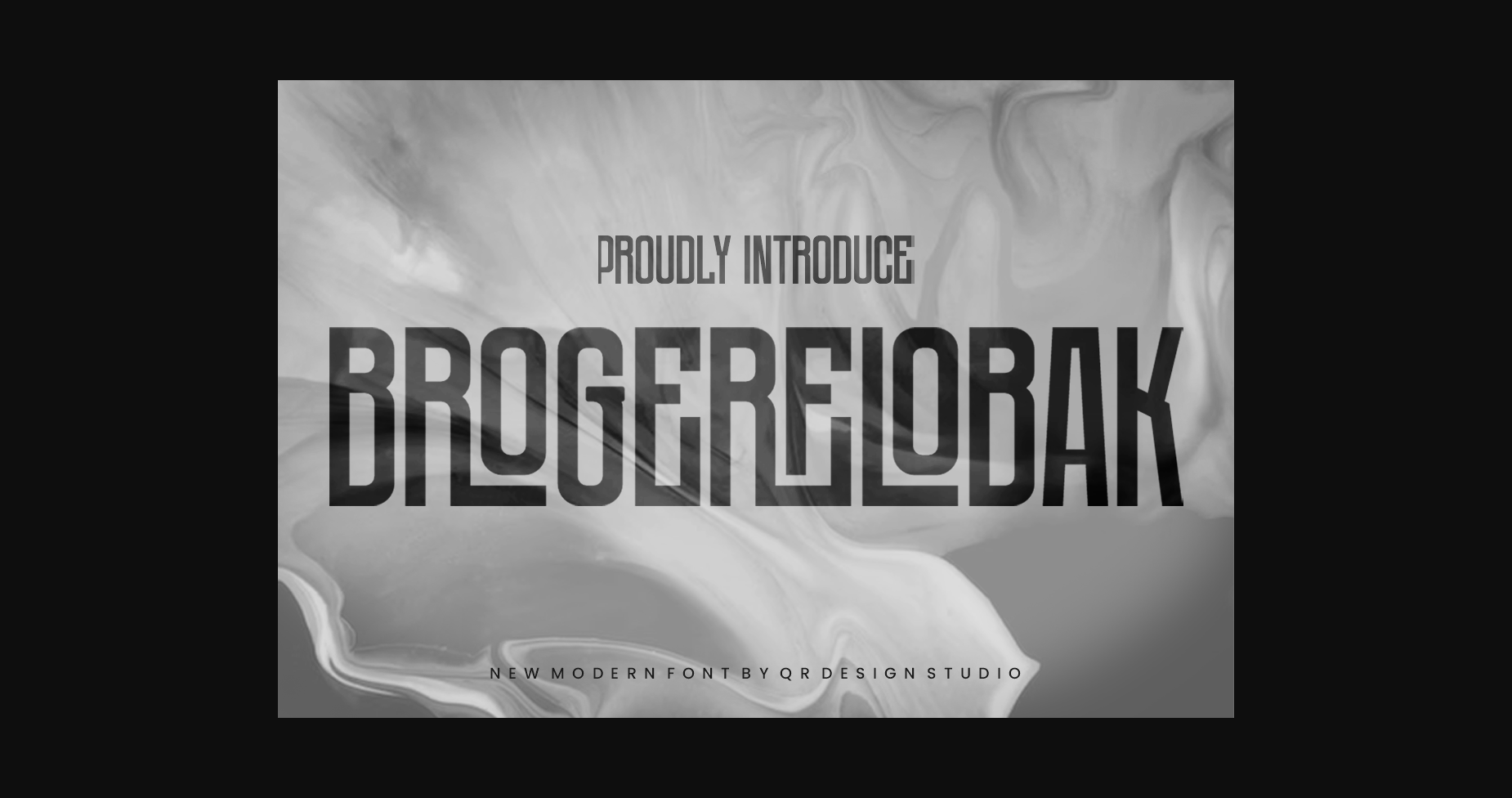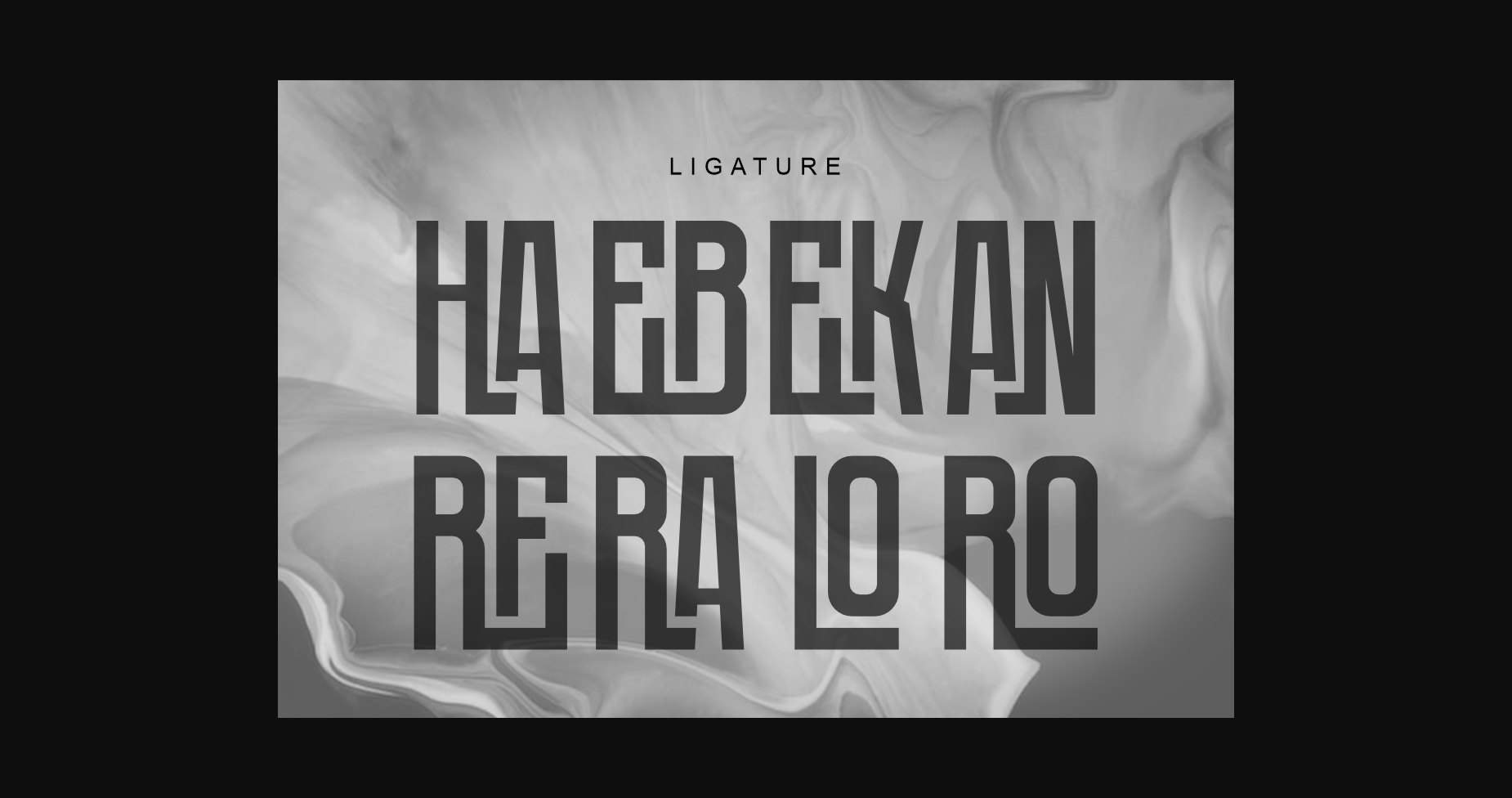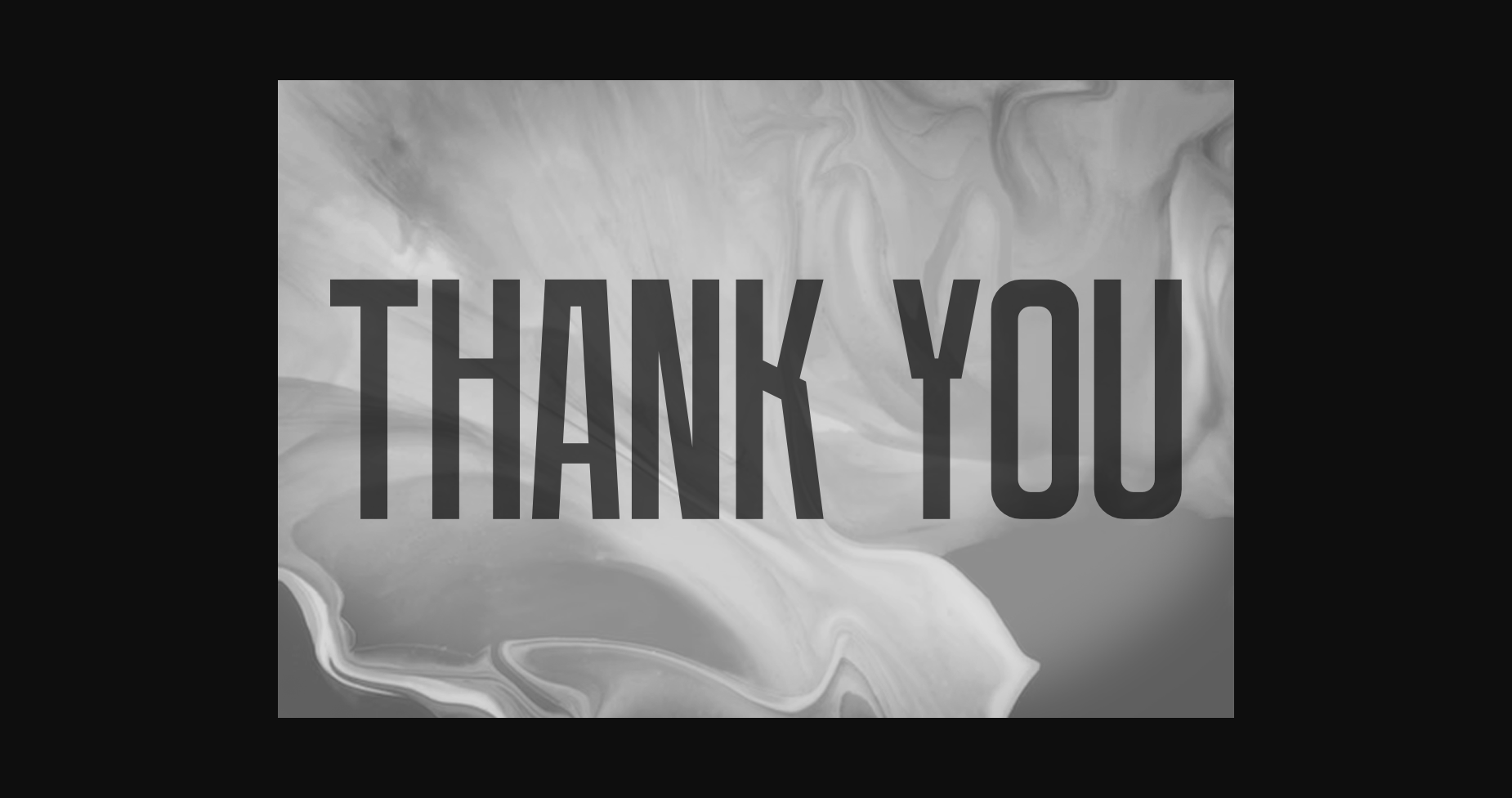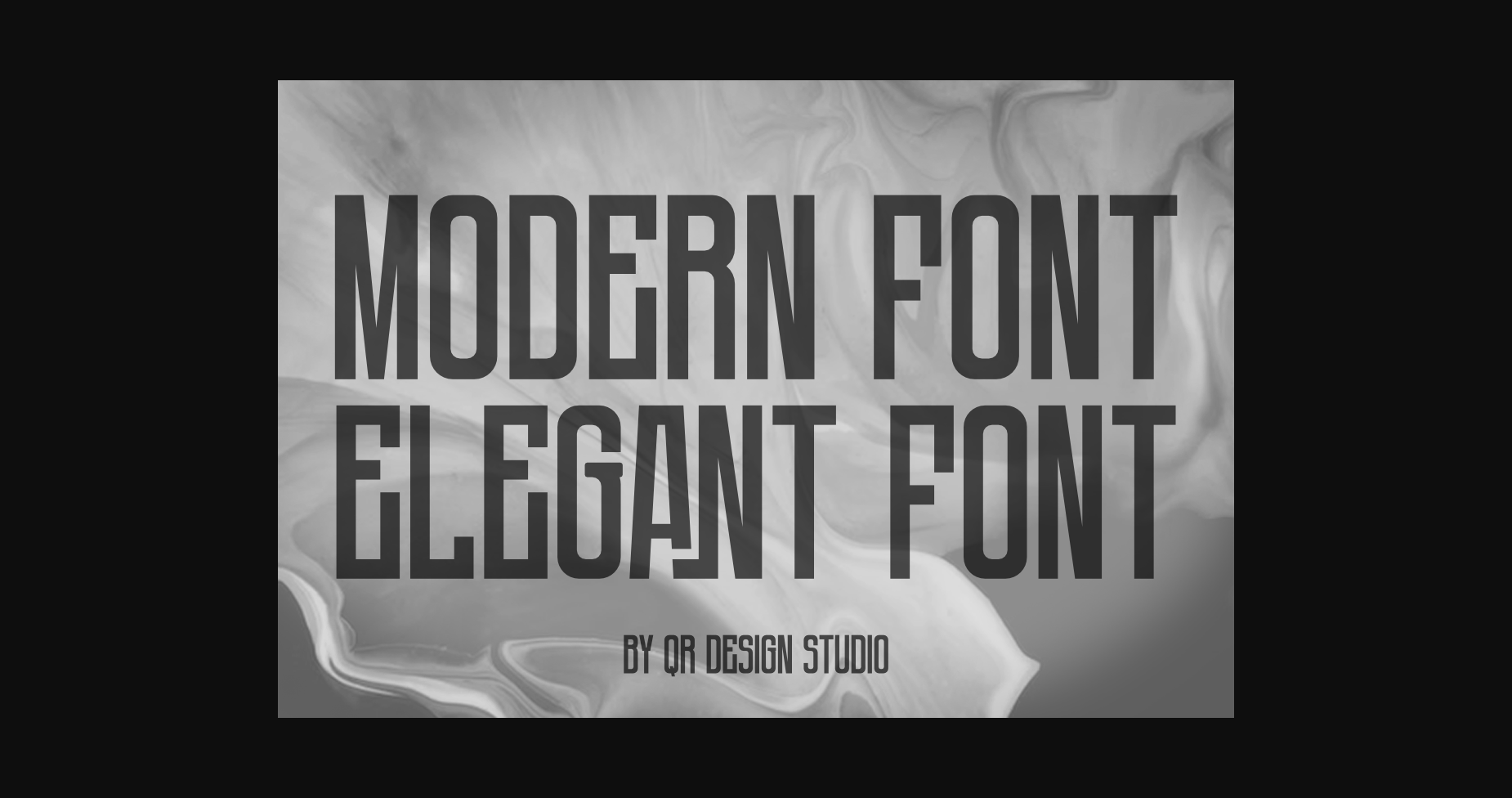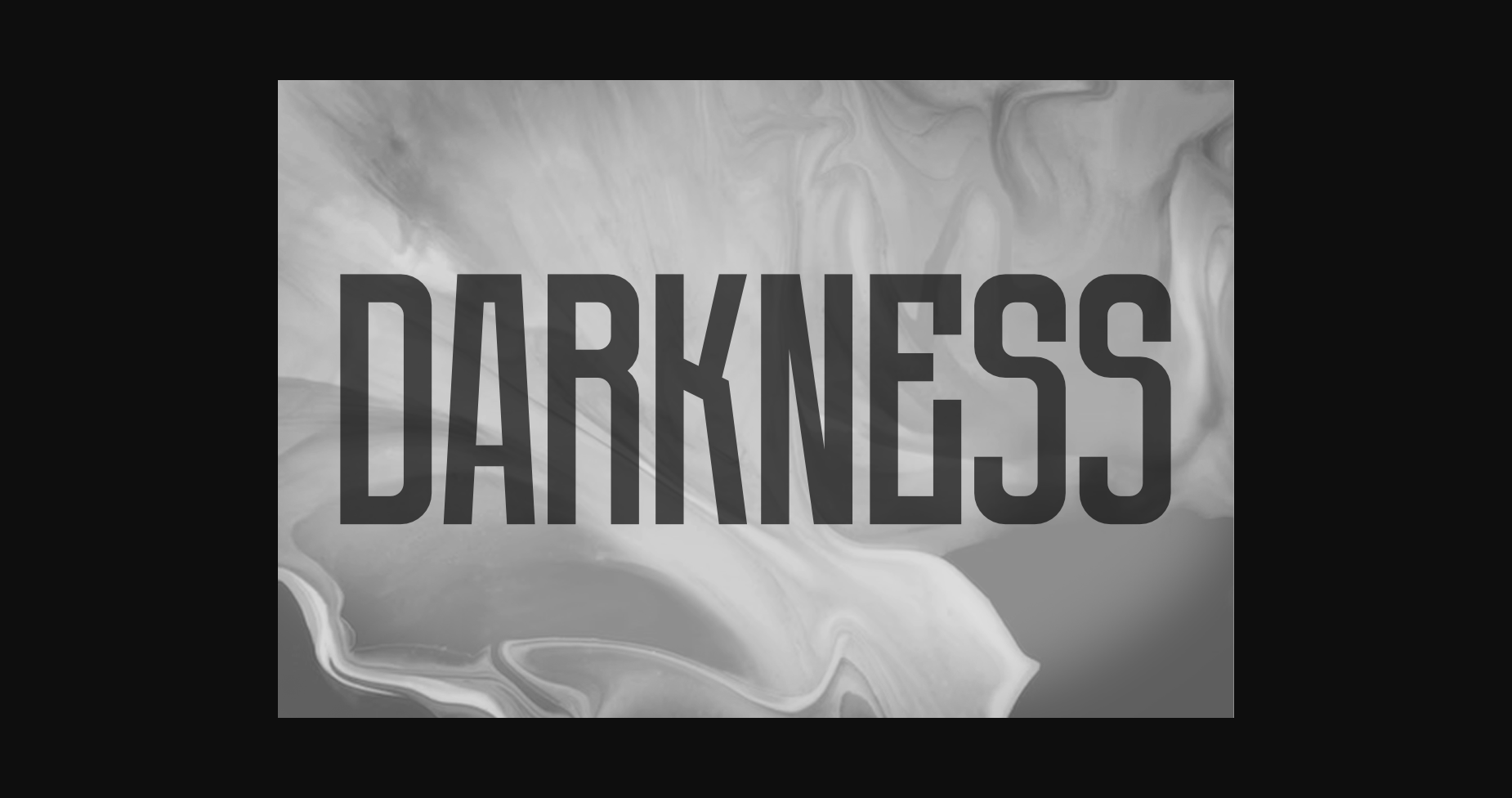
About Brogerelobak Font
Brogerelobak Font is a bold and authentic display font.
The font is suitable for any branding project like logo, sport, and many more.